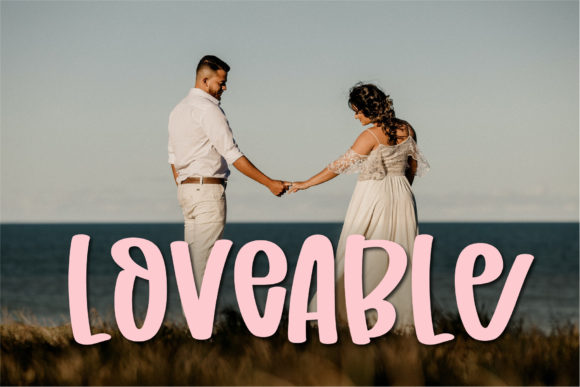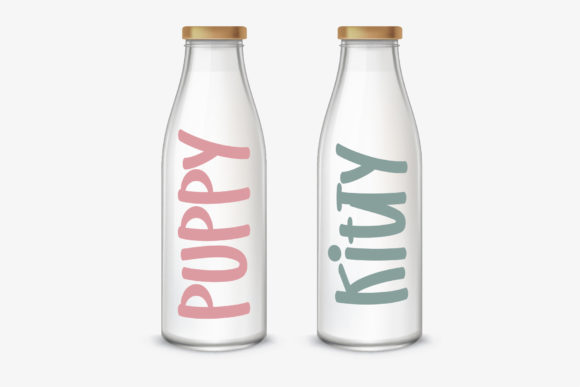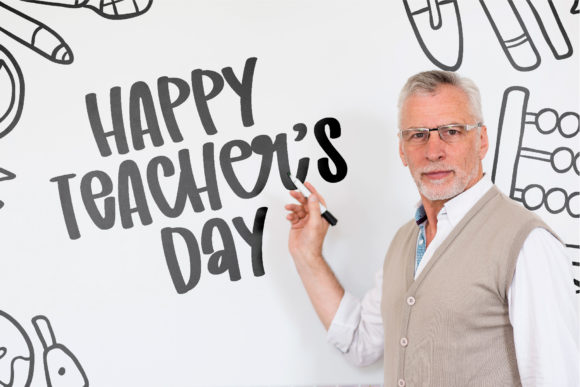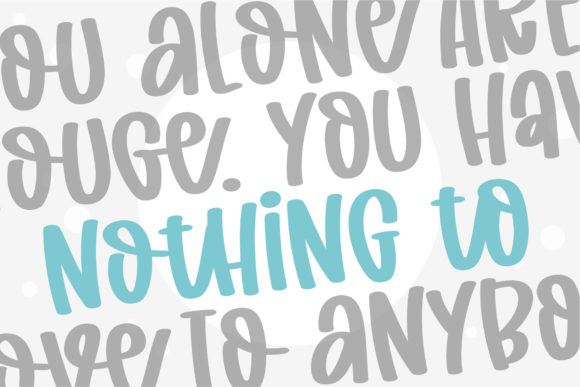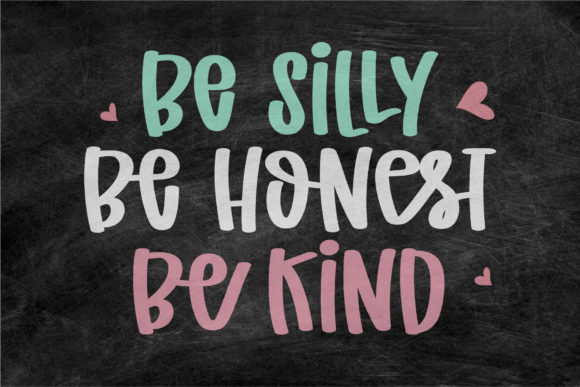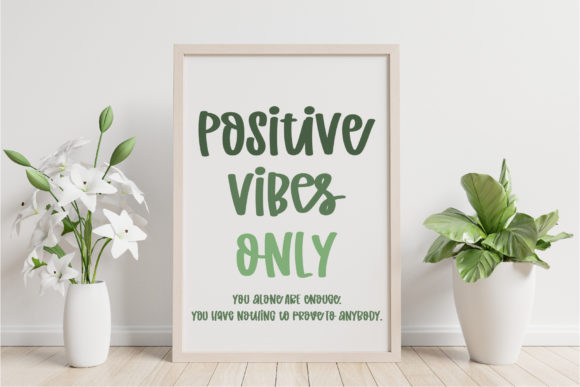
Introduction to Gorgeous Teacher Font
Gorgeous Teacher is a cute and friendly handwritten font.
It is the best choice for creating eye catching logos, branding and quotes This font is PUA encoded which means you can access all of the glyphs and swashes with ease.